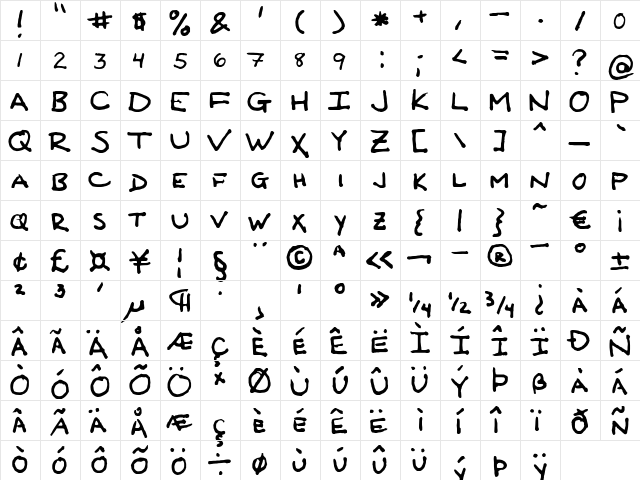
FG Ebba Regular
Design Context for FG Ebba Typeface
FG Ebba is a composed and adaptable typeface that performs quietly and consistently across a wide range of design contexts.